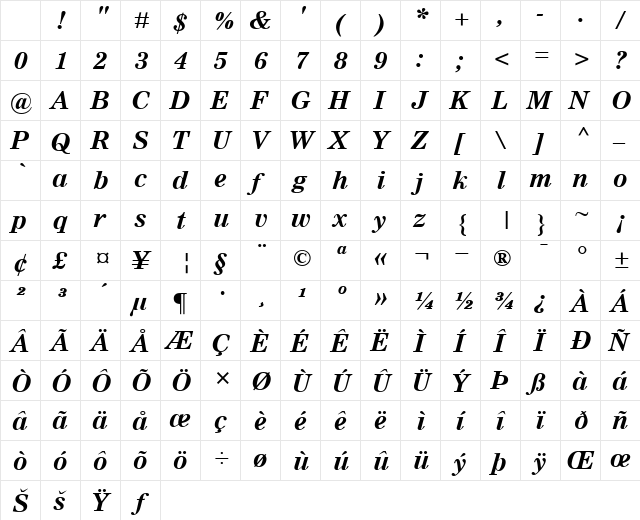
Complete Nimrod MT ItalicBold glyph index. Displaying only characters natively supported by Nimrod MT ItalicBold font.
Nimrod MT is a composed and adaptable typeface that performs quietly and consistently across a wide range of design contexts. The slanted form adds forward momentum and visual energy. Its bold stroke weight gives it real presence on the page.